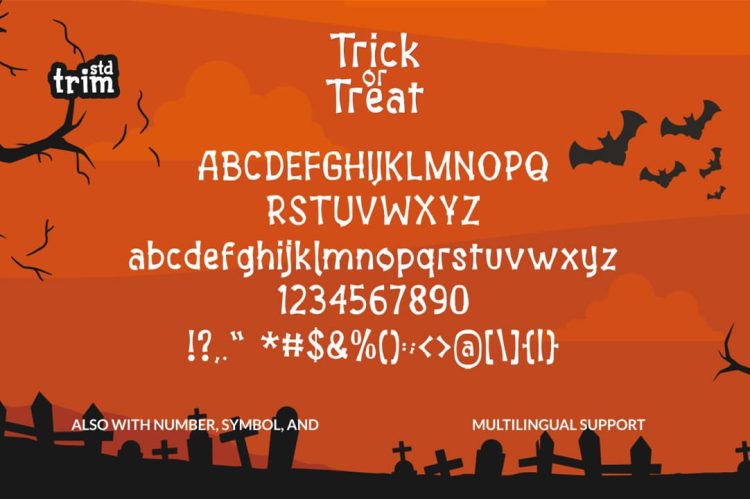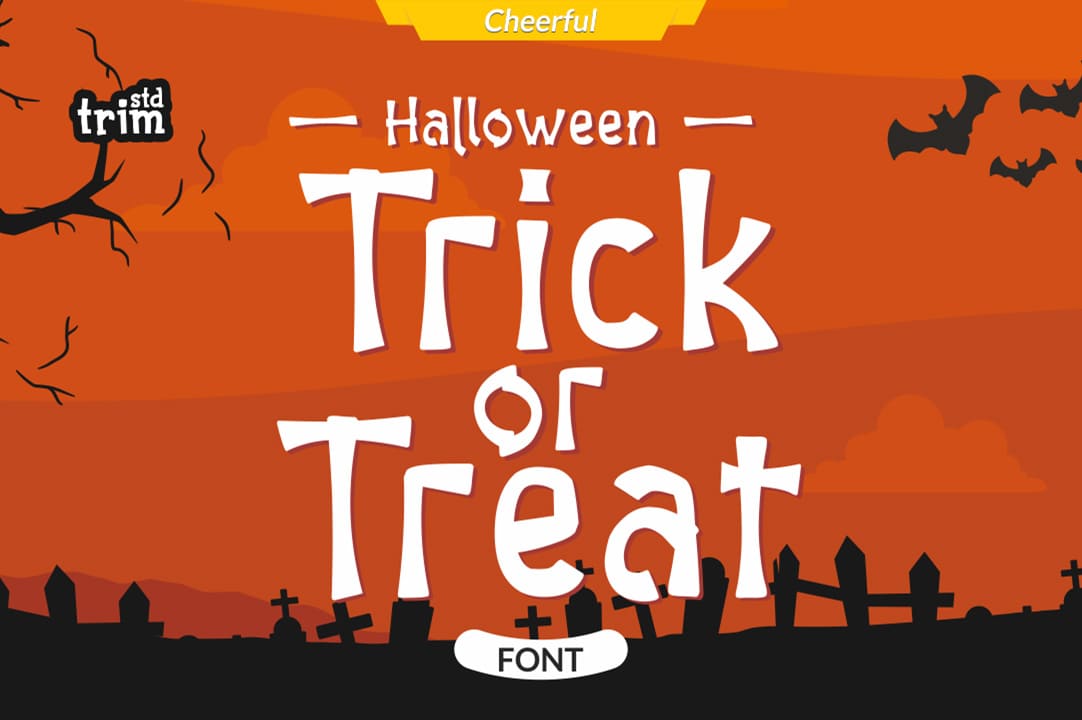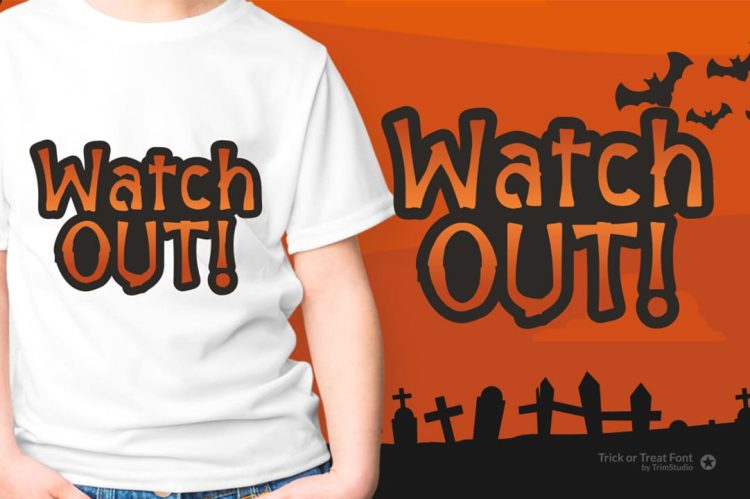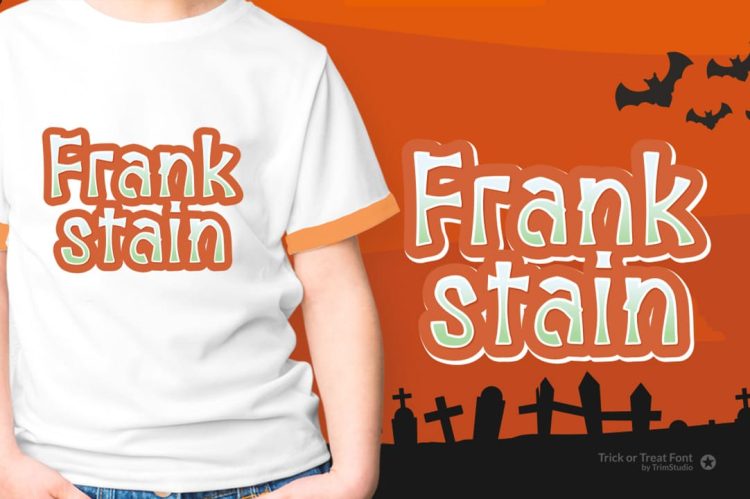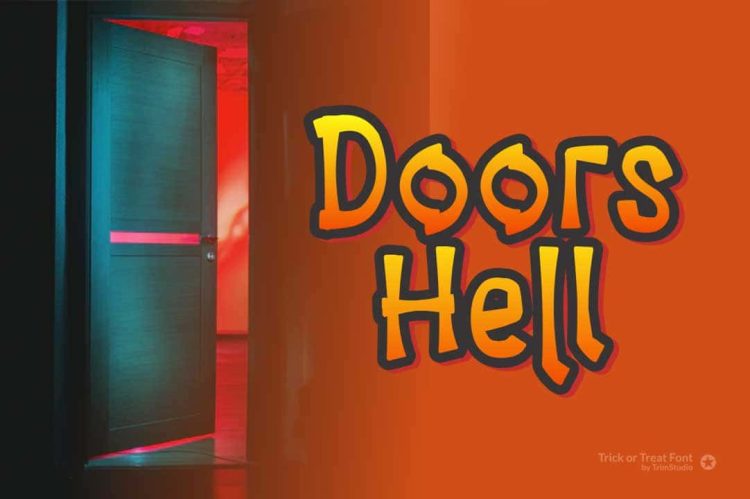
Trick Or Treat is a quirky and unique display font. Add this font to your favorite creative Halloween themed ideas and notice how it makes them stand out!